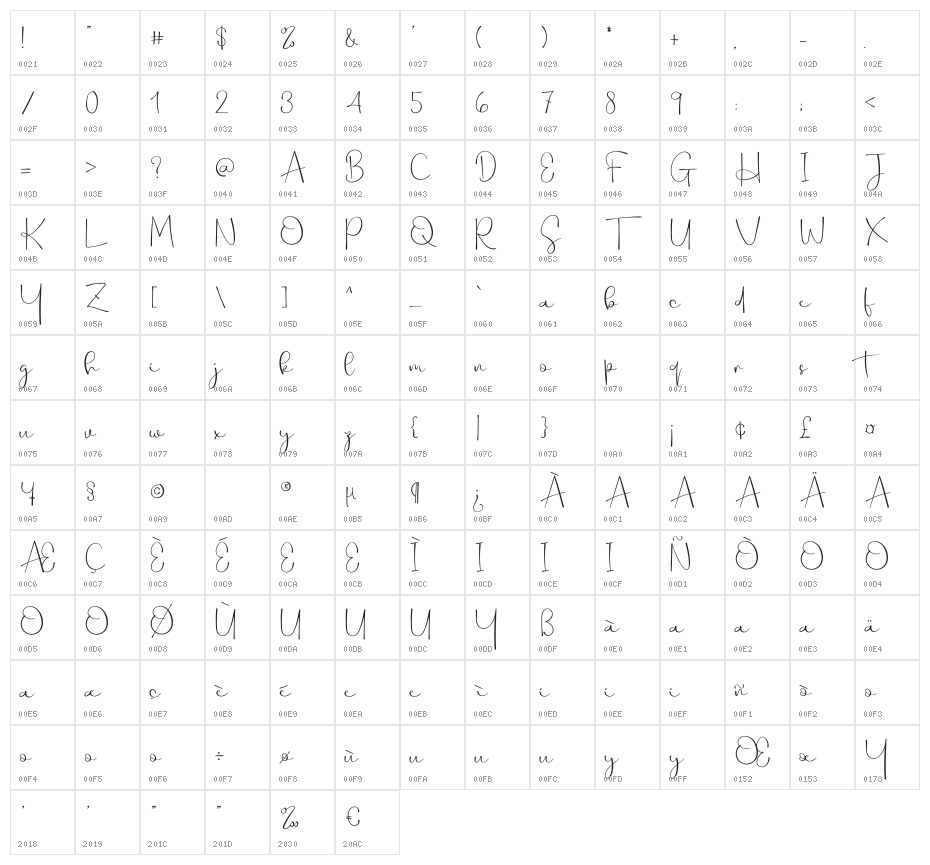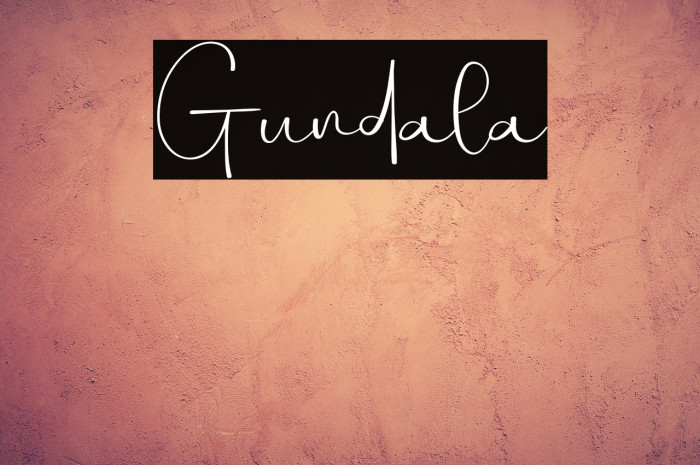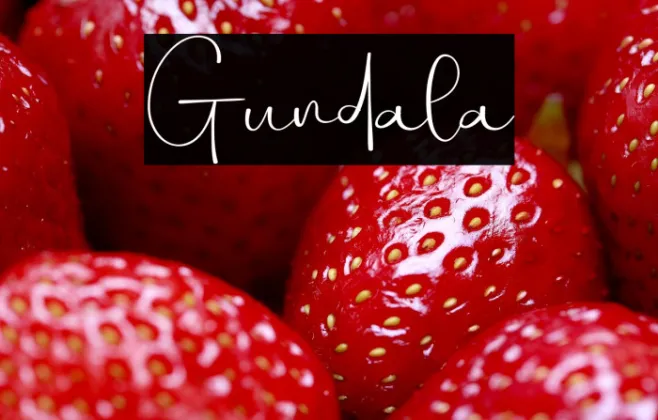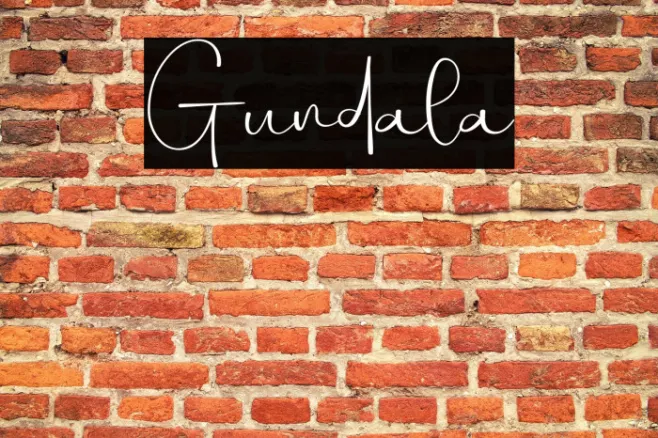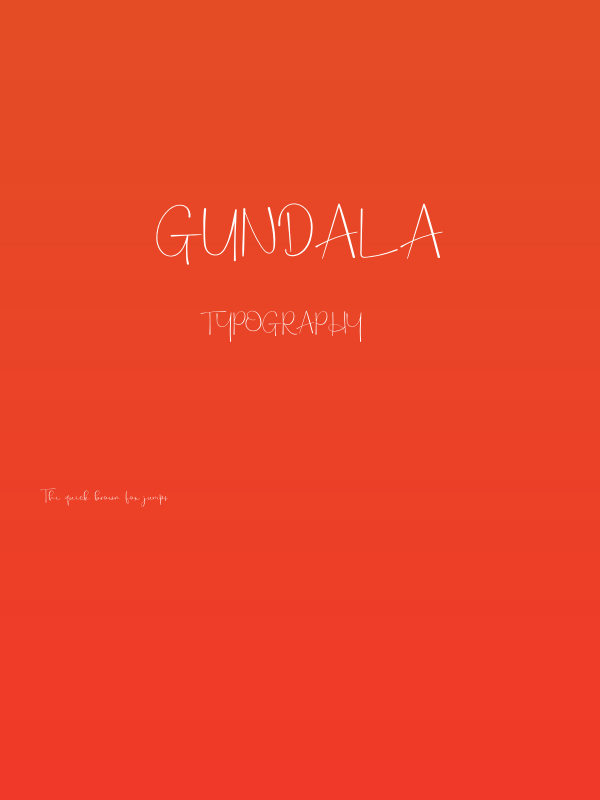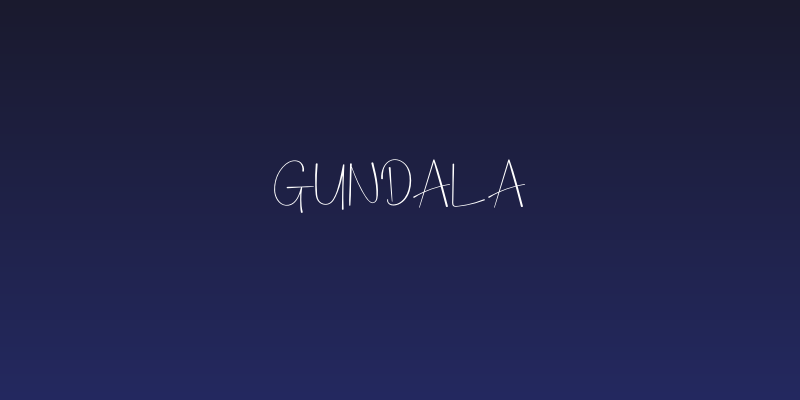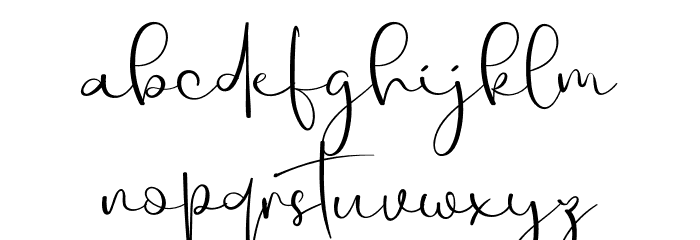
Gundala Font
Gundala Description
This font features a playful and whimsical handwritten style, characterized by its flowing and irregular strokes. The uppercase letters are tall and slender, with a slight tilt that adds a dynamic feel. The lowercase letters are more fluid and connected, resembling cursive handwriting. Numbers and special characters maintain the same playful aesthetic, ensuring consistency across all elements. The overall design is light and airy, making it suitable for projects that require a personal touch.